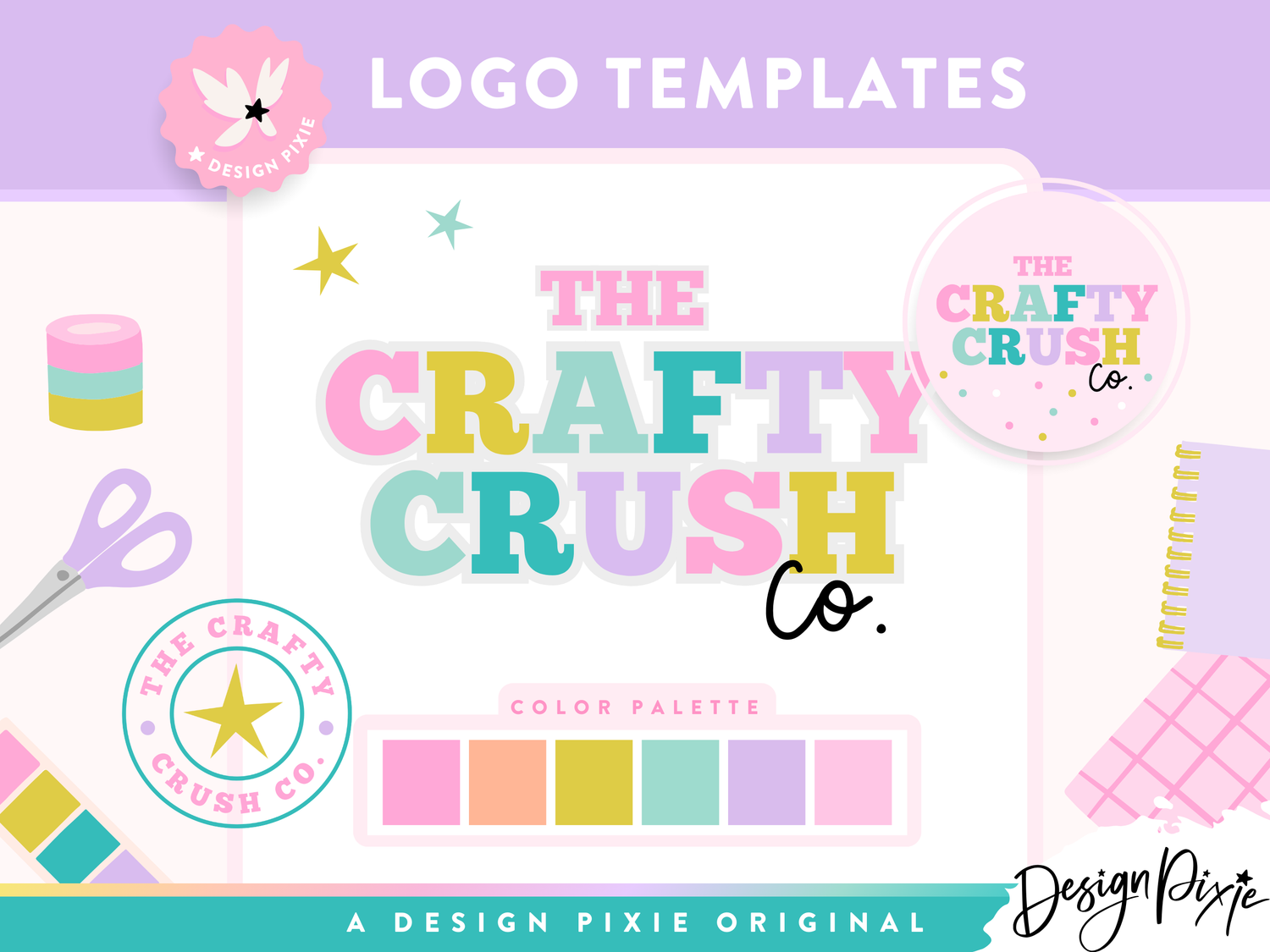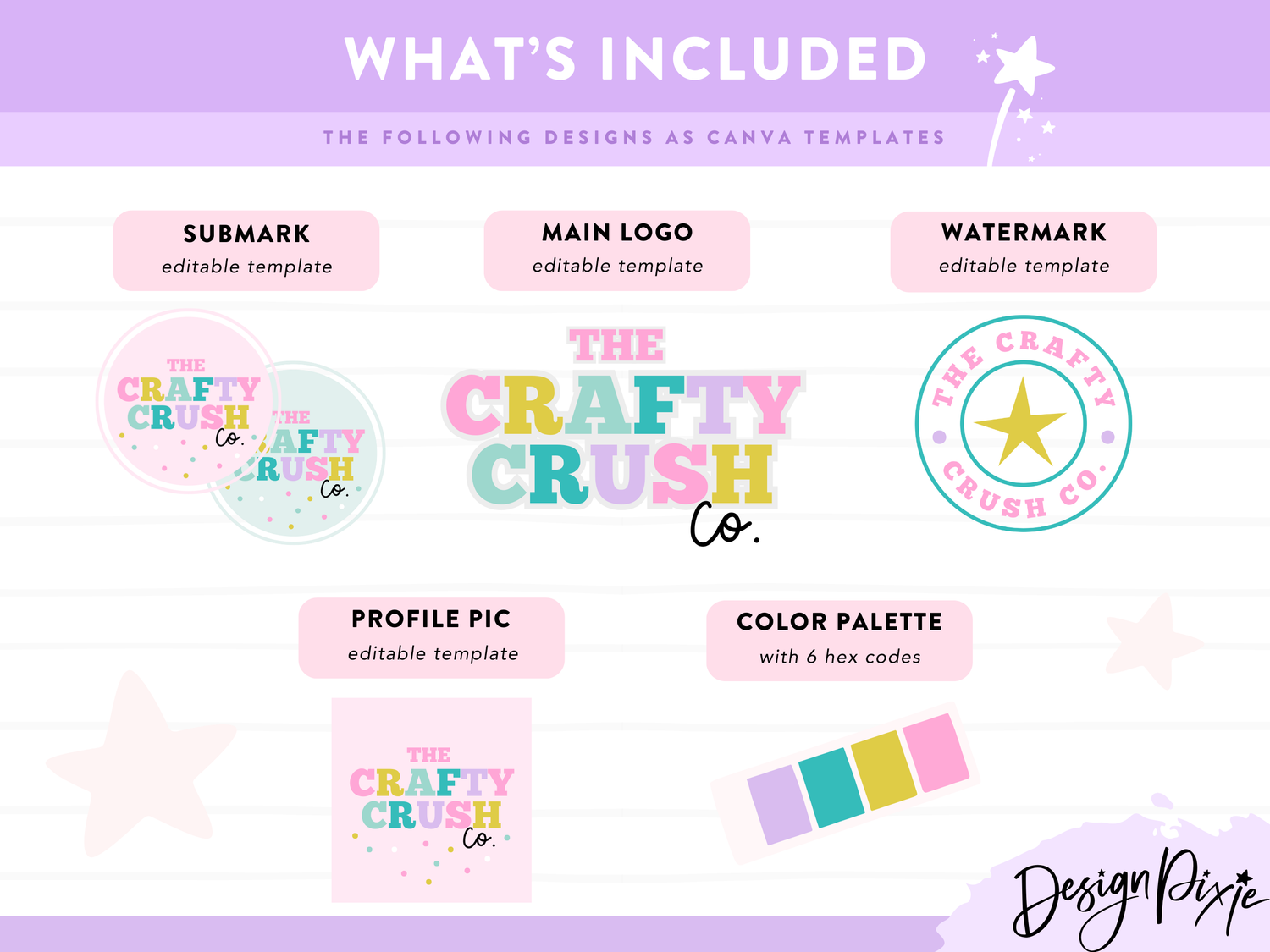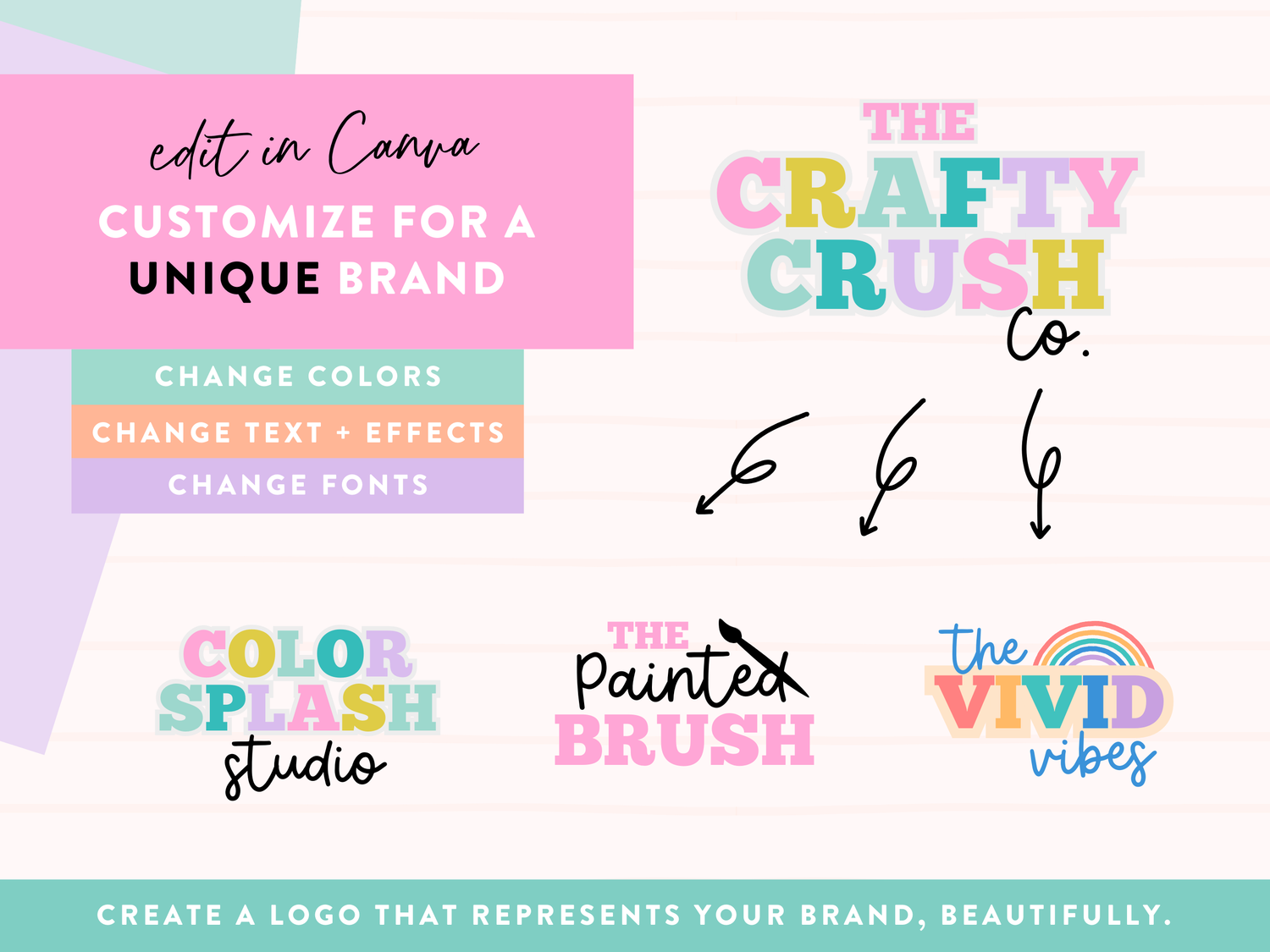
Crafty Crush Logo Design Template
Give your brand a creative touch with The Crafty Crush Co logo template! Designed for makers, creatives and small business owners who love a mix of bold and playful, this pastel rainbow logo blends varsity-style lettering with a cute handwritten script for a look that’s both modern and fun.
- Pastel rainbow design for a stylish, handmade feel
- Mix of varsity + script fonts for the perfect creative touch
- Make it your own by tweaking colors, fonts, and layout